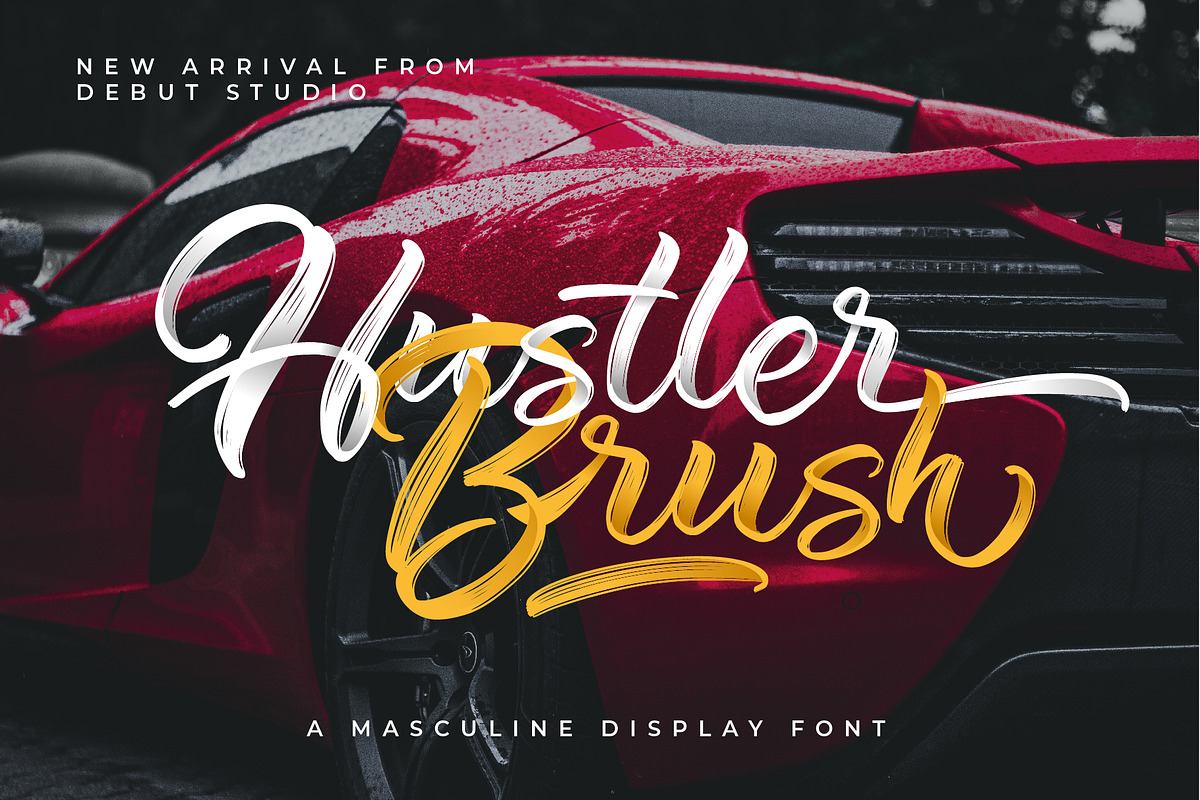
Please note that you must purchase this font for commercial use. You can download Hustler Brush Font for free, strictly for personal testing purposes only. Hustler is a bold and energetic brush script font designed to bring raw attitude and handcrafted style to your projects. With its rough edges, dynamic strokes, and rebellious personality, Hustler Brush Font Free Download is perfect for streetwear branding, music posters, merchandise, logos, apparel, skate designs, and edgy social media content.
This font mimics authentic brush lettering, giving your typography a gritty, expressive feel that commands attention. It includes uppercase and lowercase letters, numerals, punctuation, and multilingual support—ideal for a wide range of creative applications.
Whether you're designing for an underground brand or looking to inject some artistic punch into your visuals, Hustler brings boldness, style, and street-smart energy.